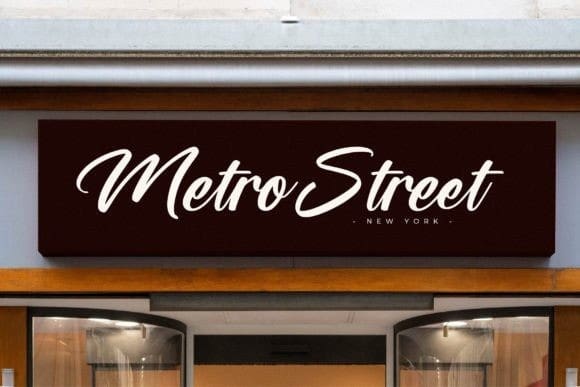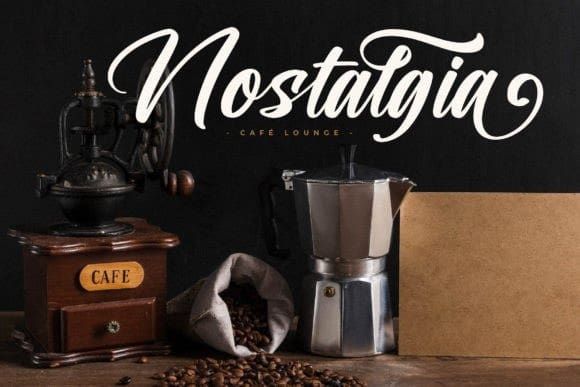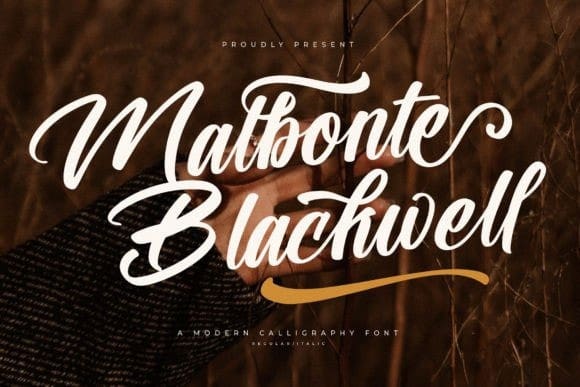
Malbonte Blackwell Font
Malbonte Blackwell Font is a cool and trendy handwritten font. It looks beautiful on a variety of designs requiring a personalized style, such as wedding invitations, thank you cards, greeting cards, logos, and so on.